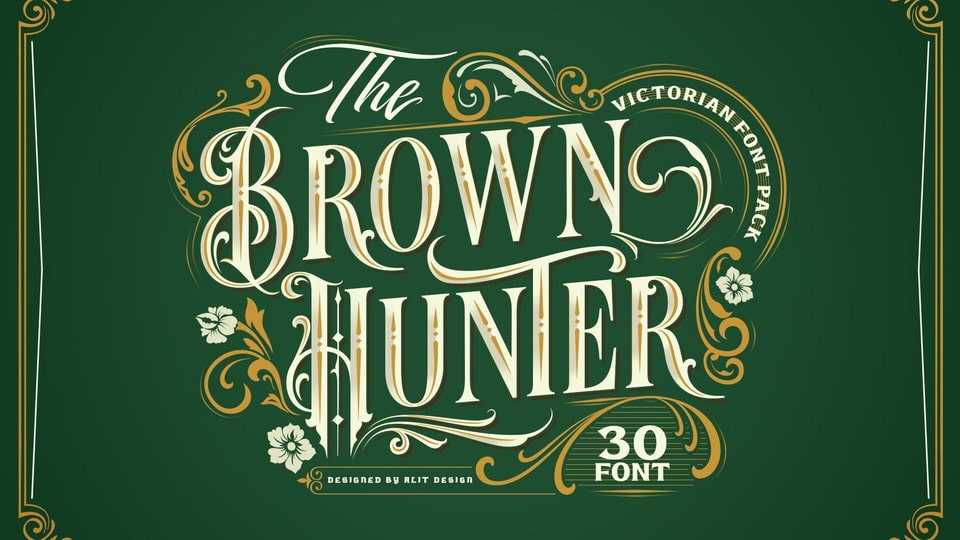
Download Brown Hunter font, a decorative display typeface inspired by the design of the 1830s. The Brown Hunter font is designed in an elegant Victorian style which contains many font characters which when combined will make an attractive design and of course very cool.